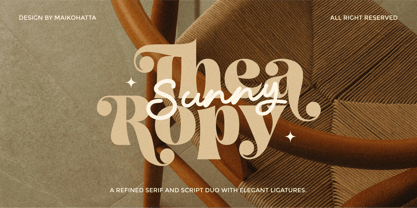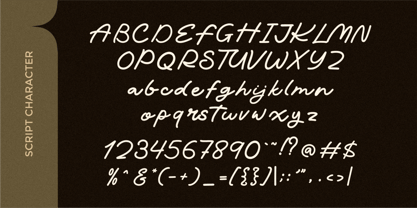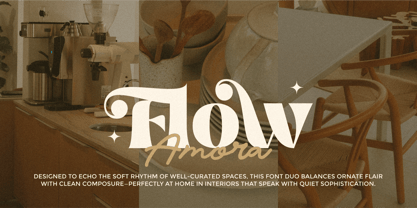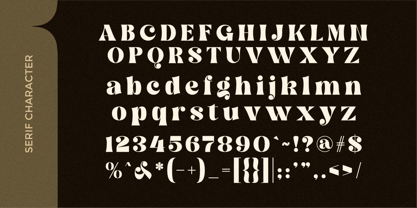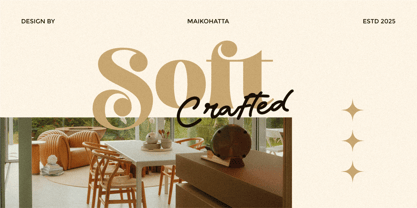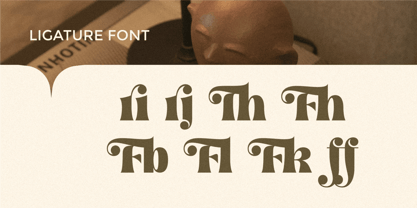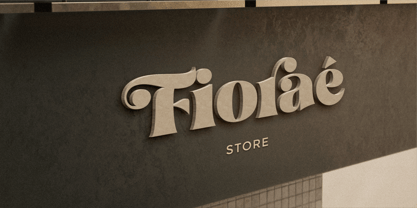
Thearopy Script
by Maikohatta
The Thearopy Script Font Family was designed by Gilang Ternadho and published by Maikohatta. Thearopy Script contains 2 styles and family package options. More about this family
Thearopy is a sophisticated font duo that harmoniously blends an elegant serif typeface with a modern, flowing script. Designed with meticulous attention to detail, the serif style showcases bold, high-contrast letterforms with artistic flourishes and stylish ligatures, evoking a sense of timeless refinement. The accompanying script adds a soft, hand-lettered charm with its smooth curves and natural flow, making it perfect for brand identities, wedding invitations, editorial design, and high-end packaging.
Whether used together or separately, Thearopy offers a versatile and luxurious typographic solution that brings a touch of warmth and elegance to any creative project.